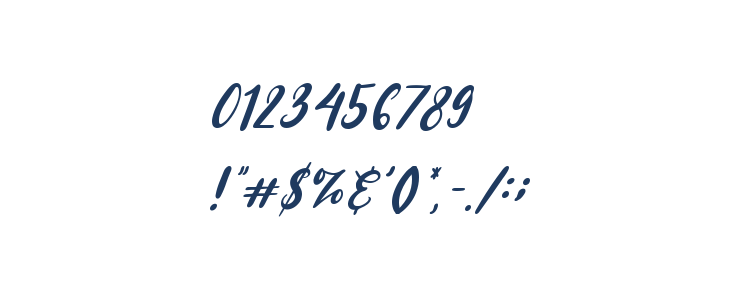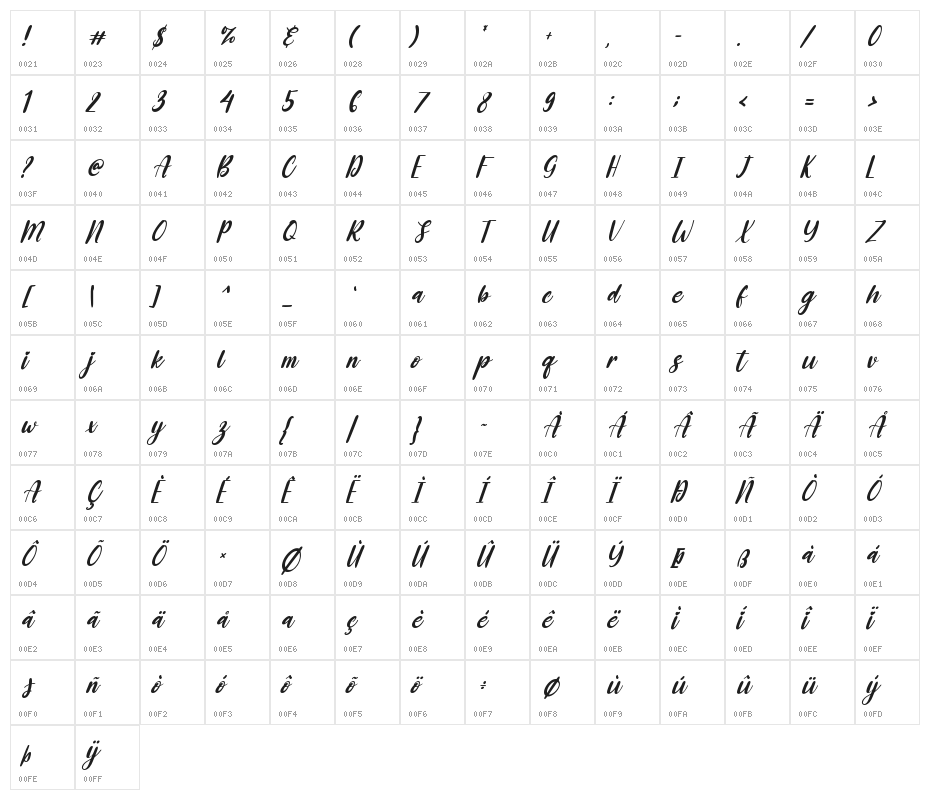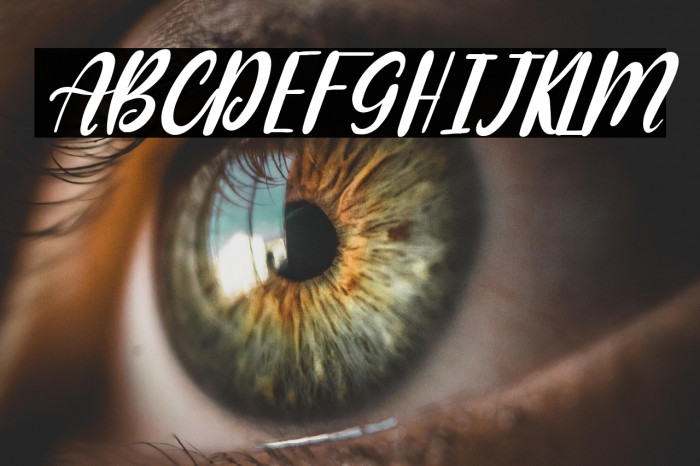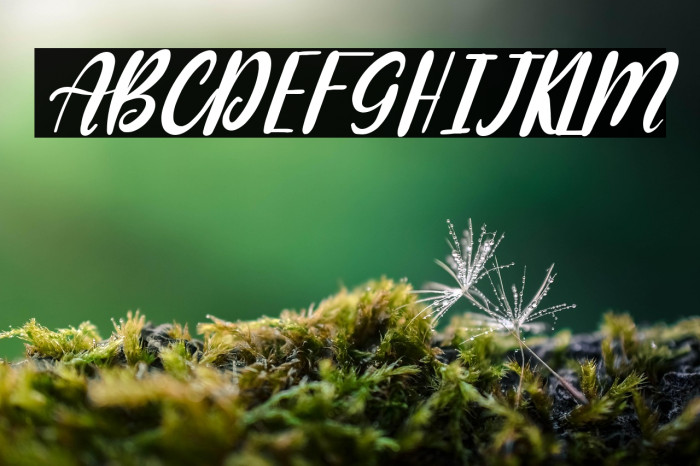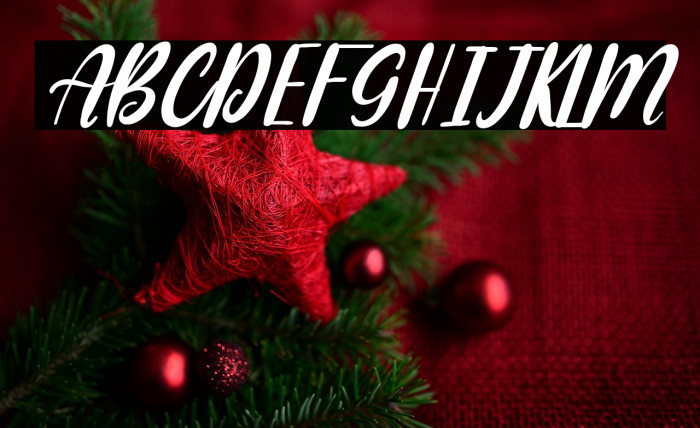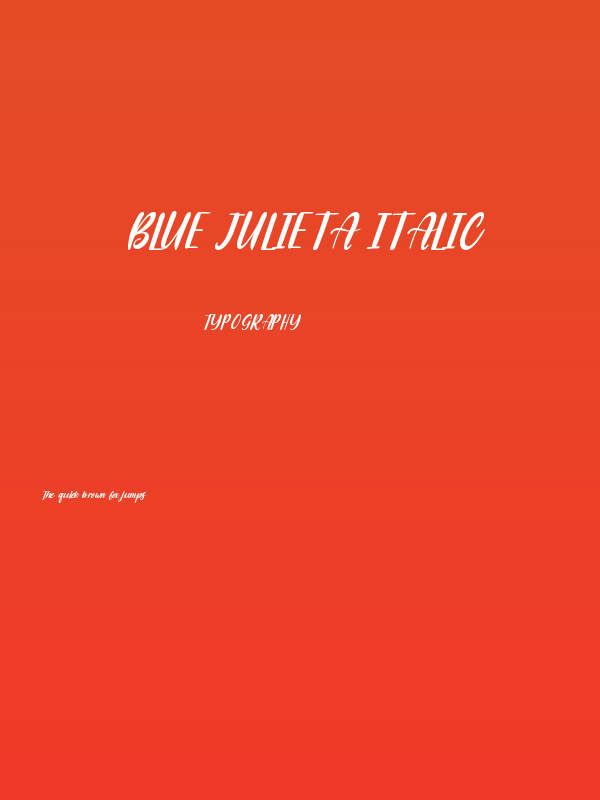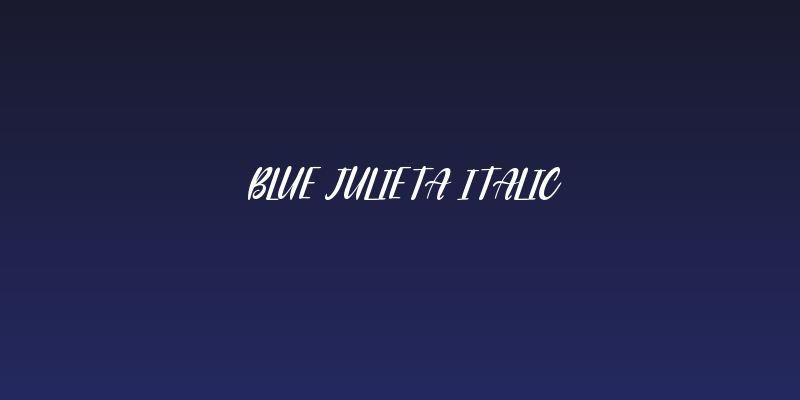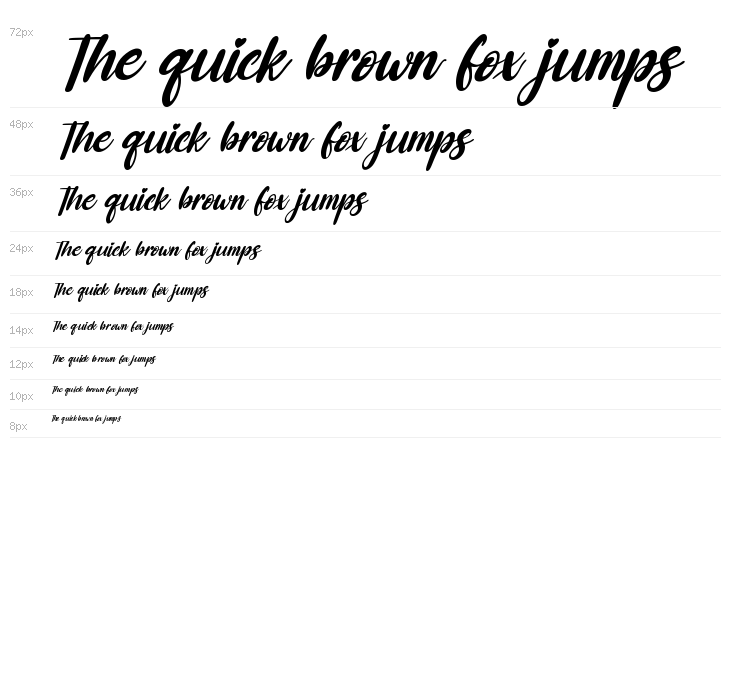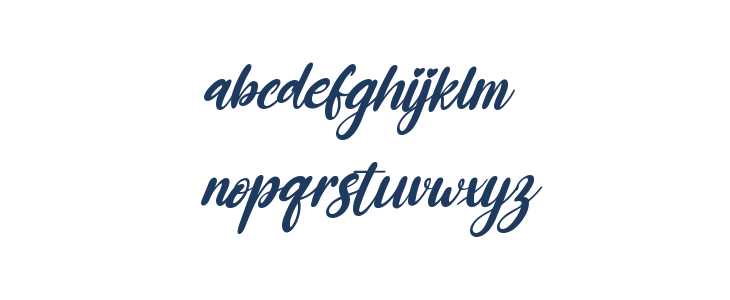
Blue Julieta Italic Font
Blue Julieta Italic Description
This font features a dynamic and flowing script style, characterized by its elegant and fluid letterforms. The uppercase letters exhibit a graceful slant, with sweeping curves and a sense of movement that adds a touch of sophistication. The lowercase letters maintain a consistent style, with smooth connections between characters, enhancing readability while preserving the font's decorative appeal. The numerals are designed with a similar flair, ensuring they integrate seamlessly with the alphabet. Special characters are crafted with attention to detail, maintaining the overall aesthetic. This font's italic nature adds to its expressive quality, making it suitable for creative and artistic applications.